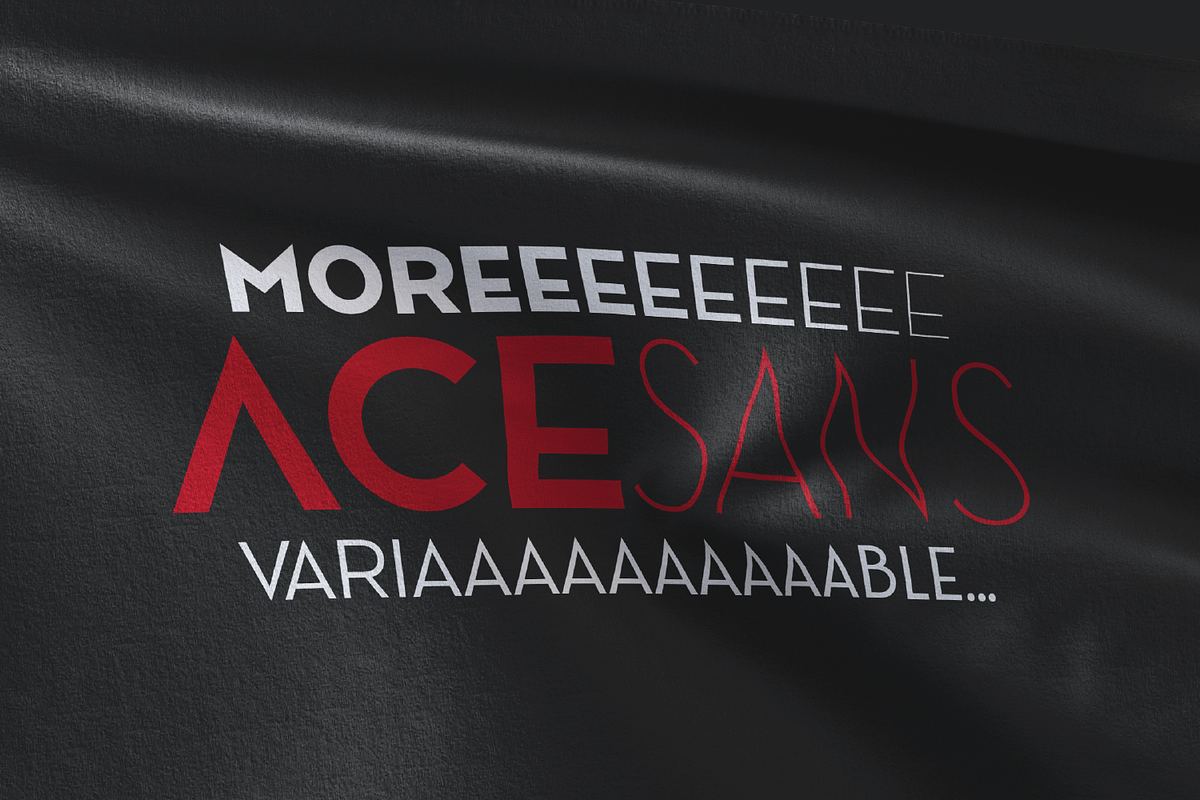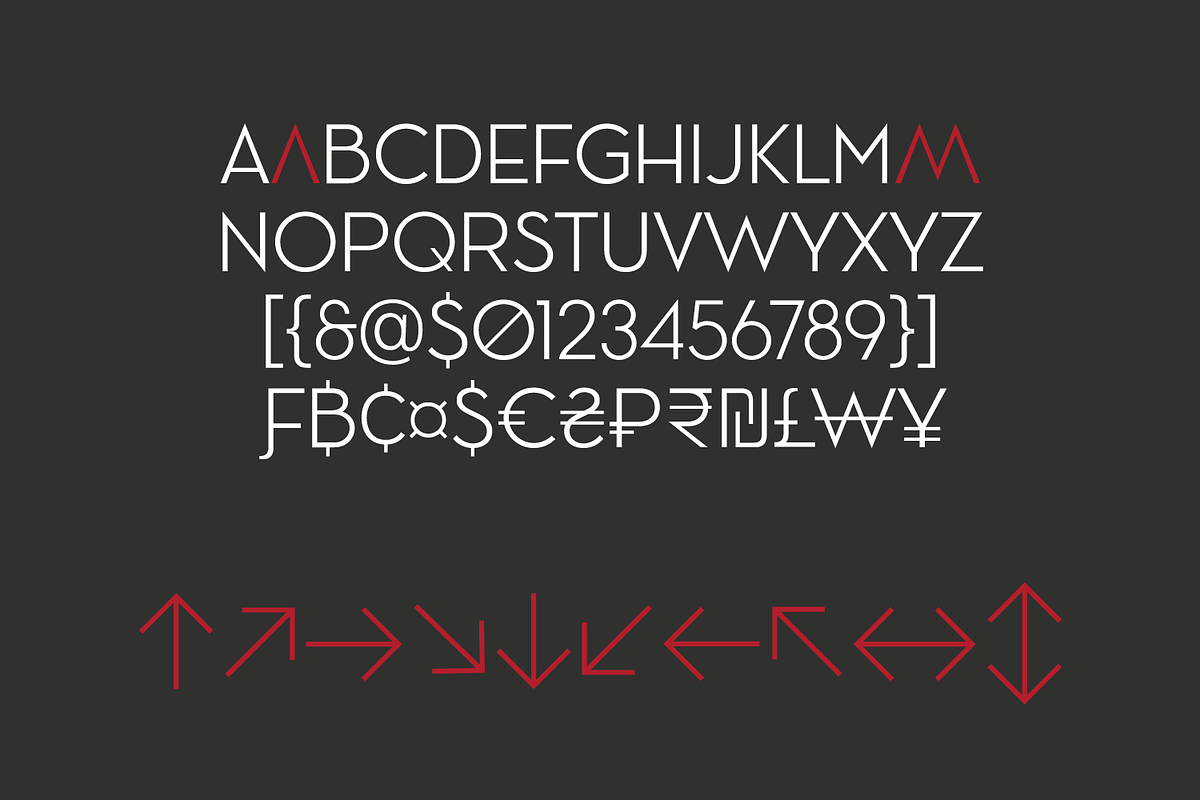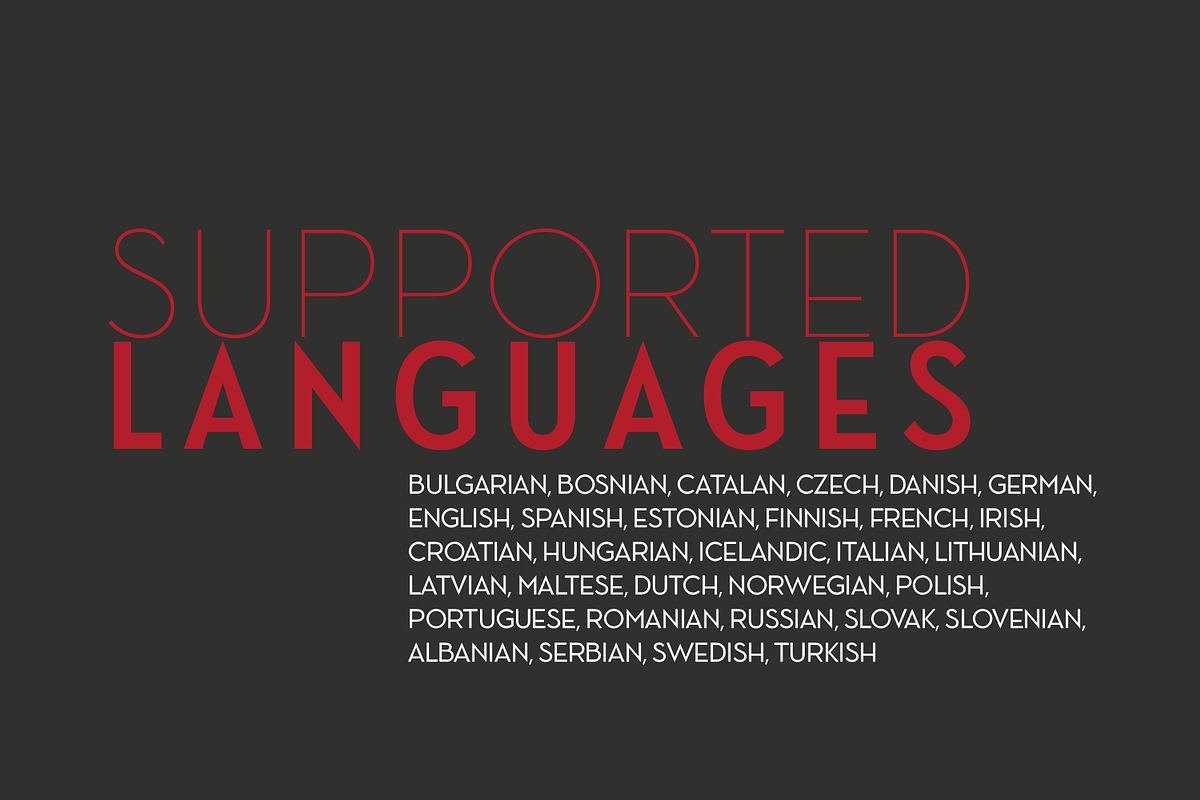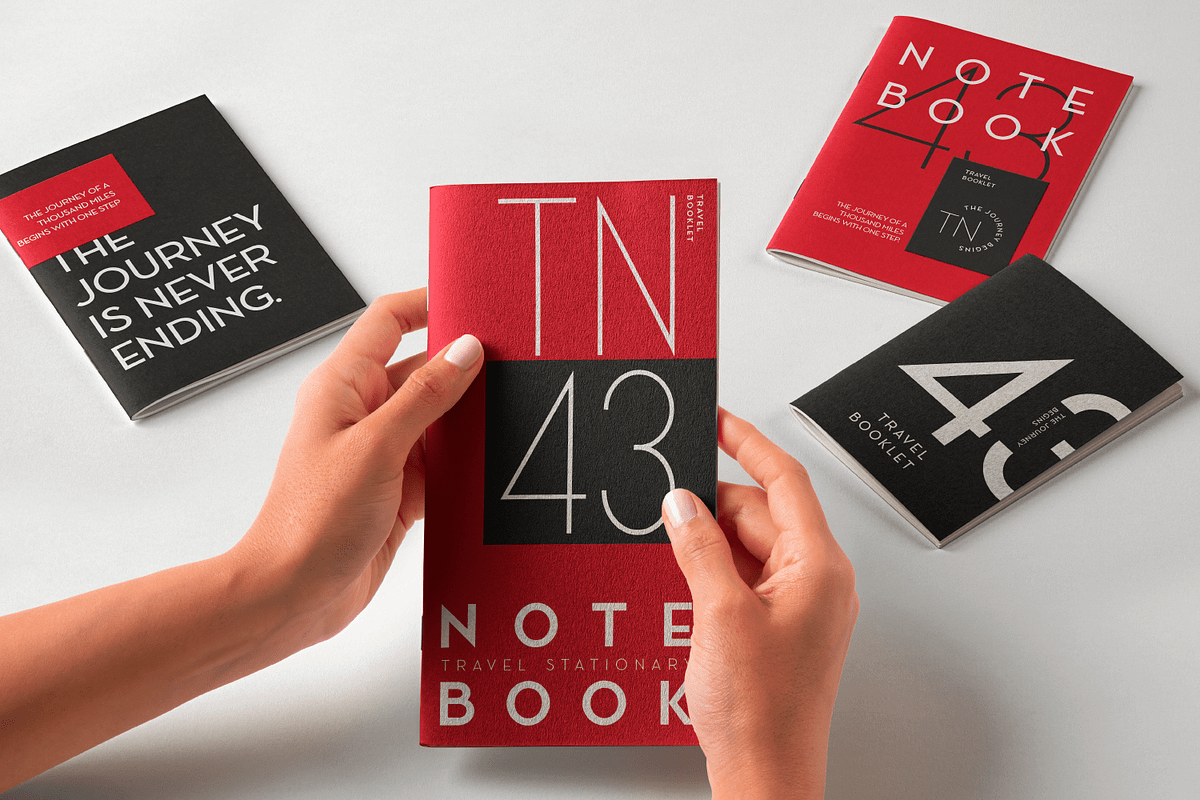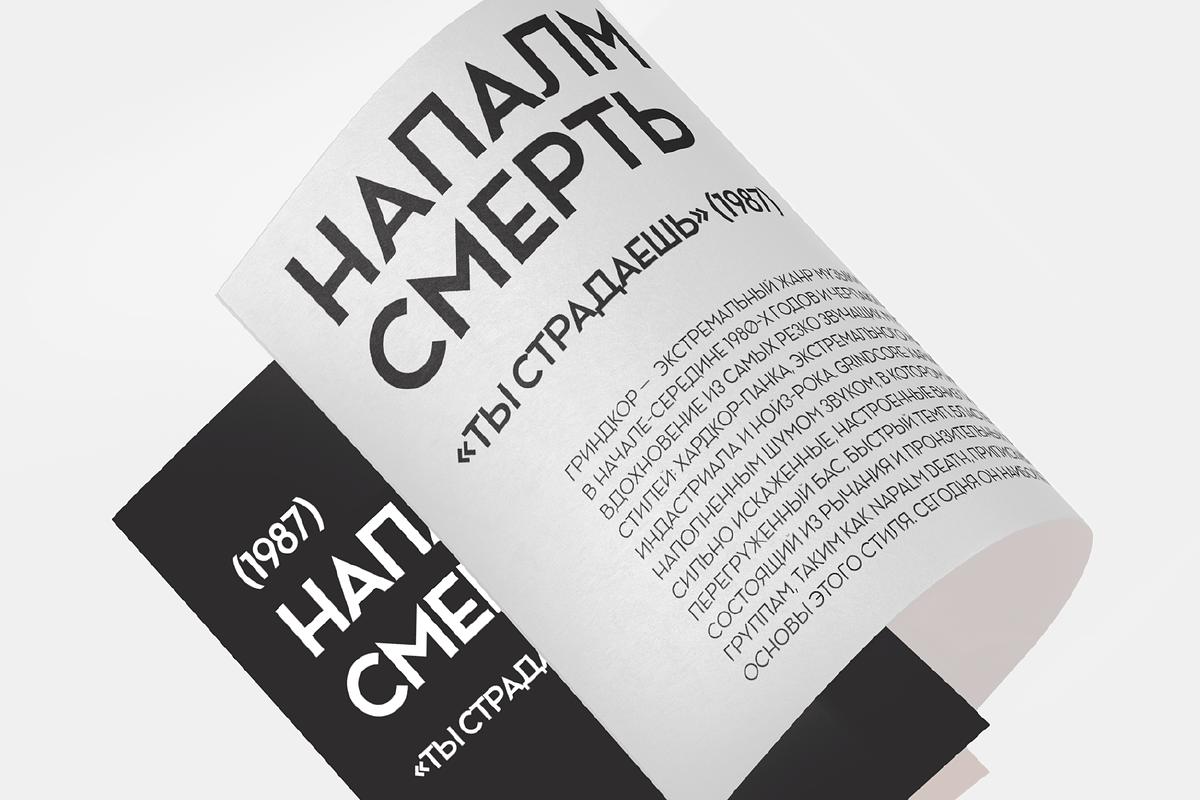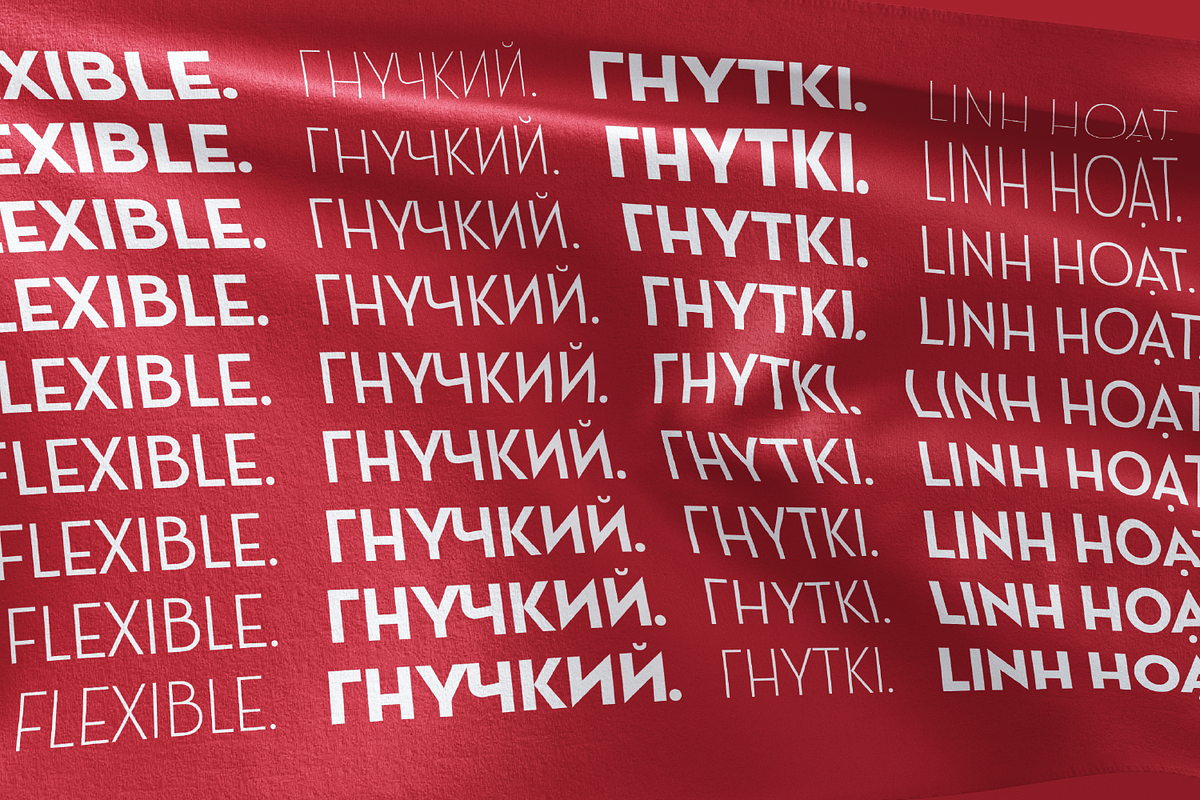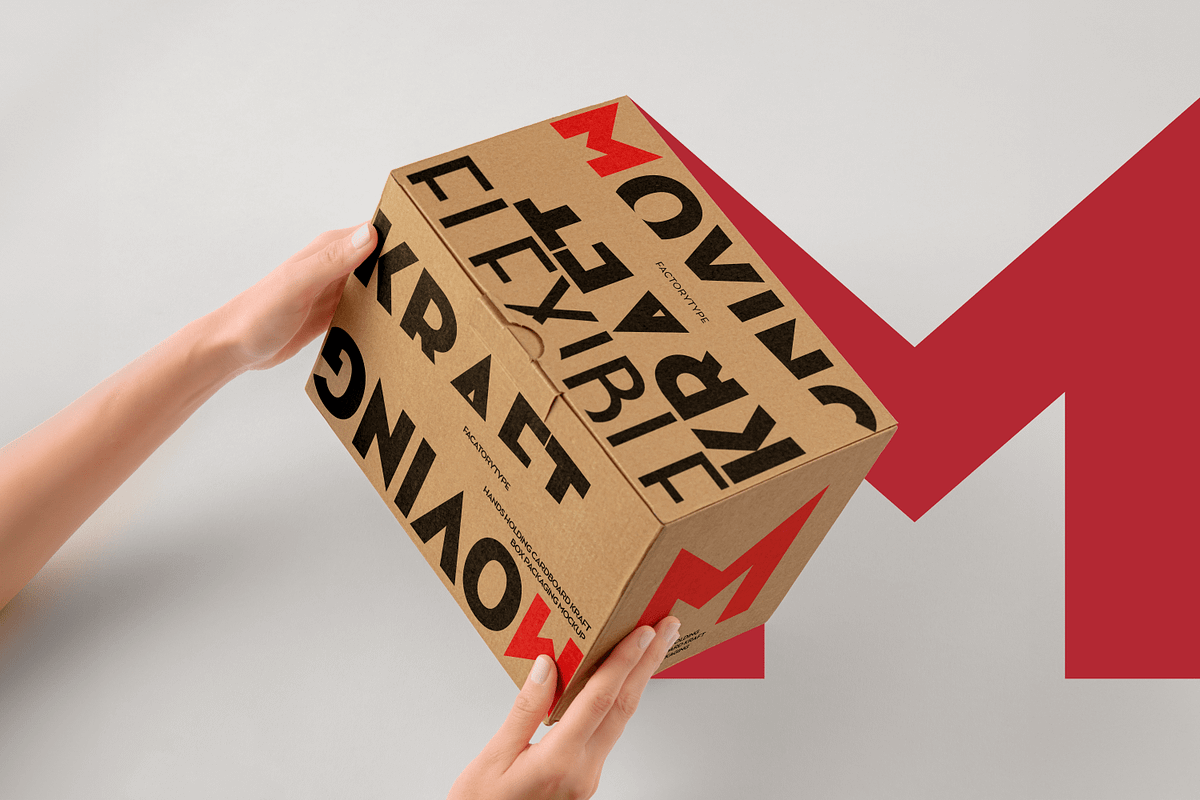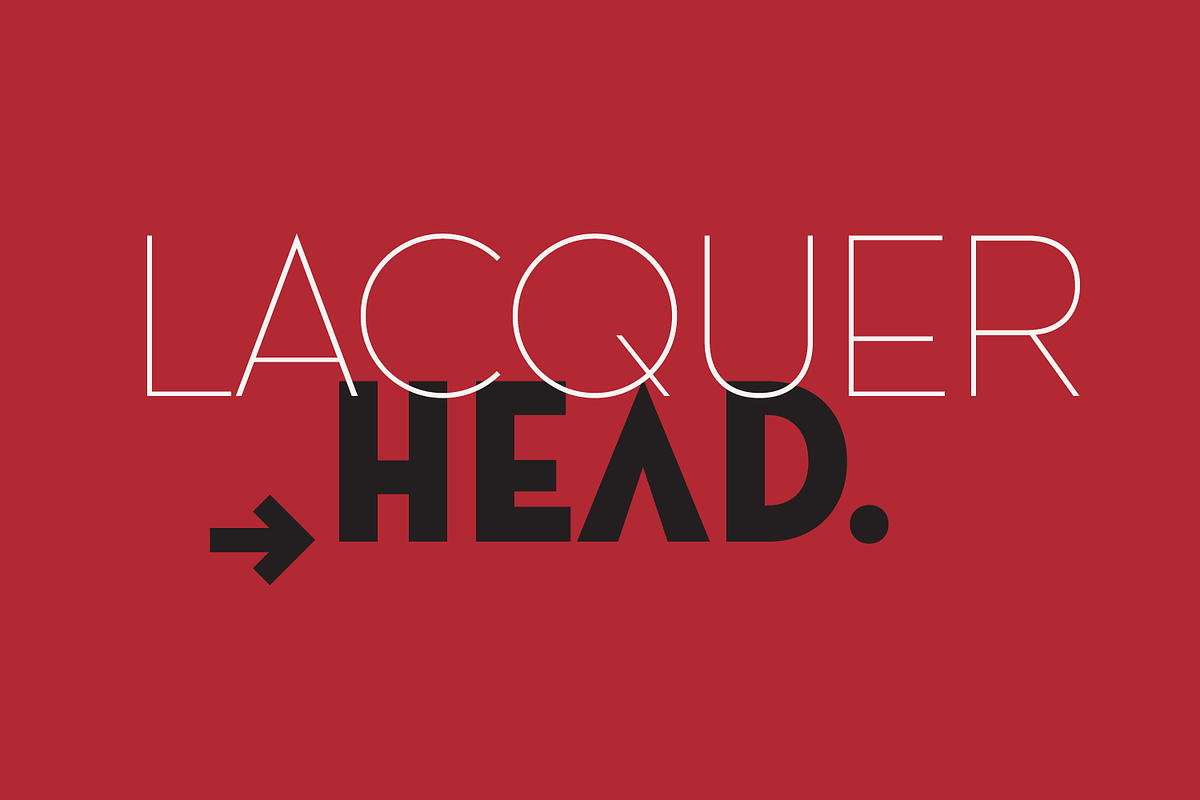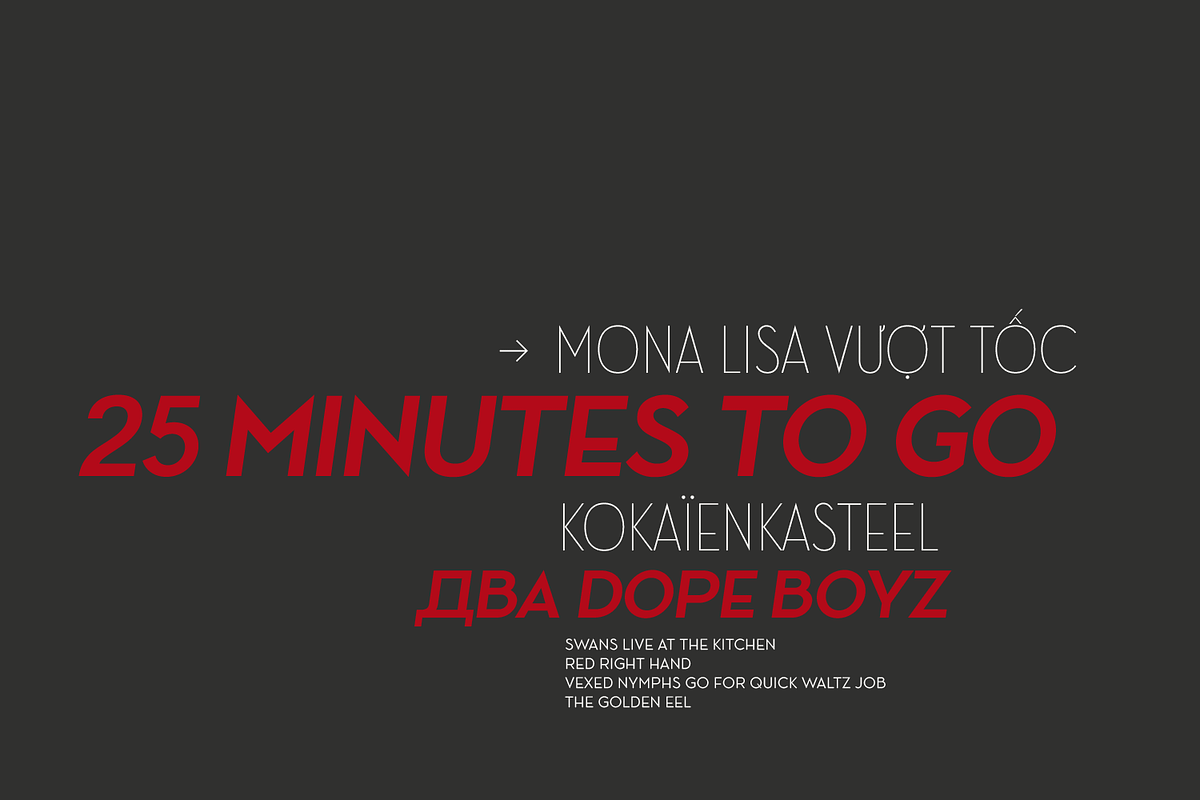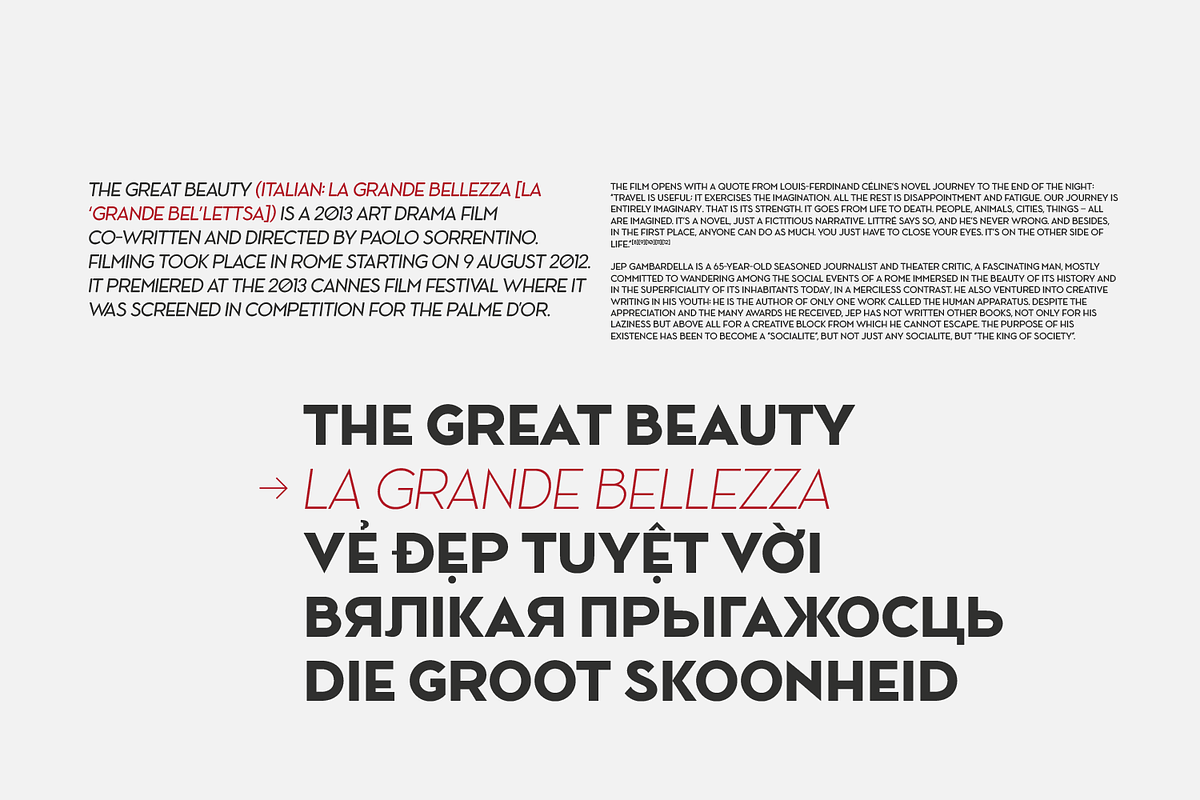
Ace Sans Variable Font
Meet Ace Sans Variable Font – the font fam that's all about that modern, chill vibe! It's like the hipster of fonts, rocking a minimal and geometric design for that extra cool factor. Ace Sans brings you clean and modern caps, giving you endless options to play with. It's your go-to for spicing up headlines, revamping your branding, or adding a splash of style to posters, logos, and magazines – you name it! Plus, it's not just your average font – it's got that variable font magic and multilingual support. Time to give your words a stylish makeover!
- Variable 2 Axes (multiple weights and widths)
- 1,506 glyphs
- Supported Languages: BULGARIAN, BOSNIAN, CATALAN, CZECH, DANISH, GERMAN, ENGLISH, SPANISH, ESTONIAN, FINNISH, FRENCH, IRISH, CROATIAN, HUNGARIAN, ICELANDIC, ITALIAN, LITHUANIAN, LATVIAN, MALTESE, DUTCH, NORWEGIAN, POLISH, PORTUGUESE, ROMANIAN, RUSSIAN, SLOVAK, SLOVENIAN, ALBANIAN, SERBIAN, SWEDISH, TURKISH